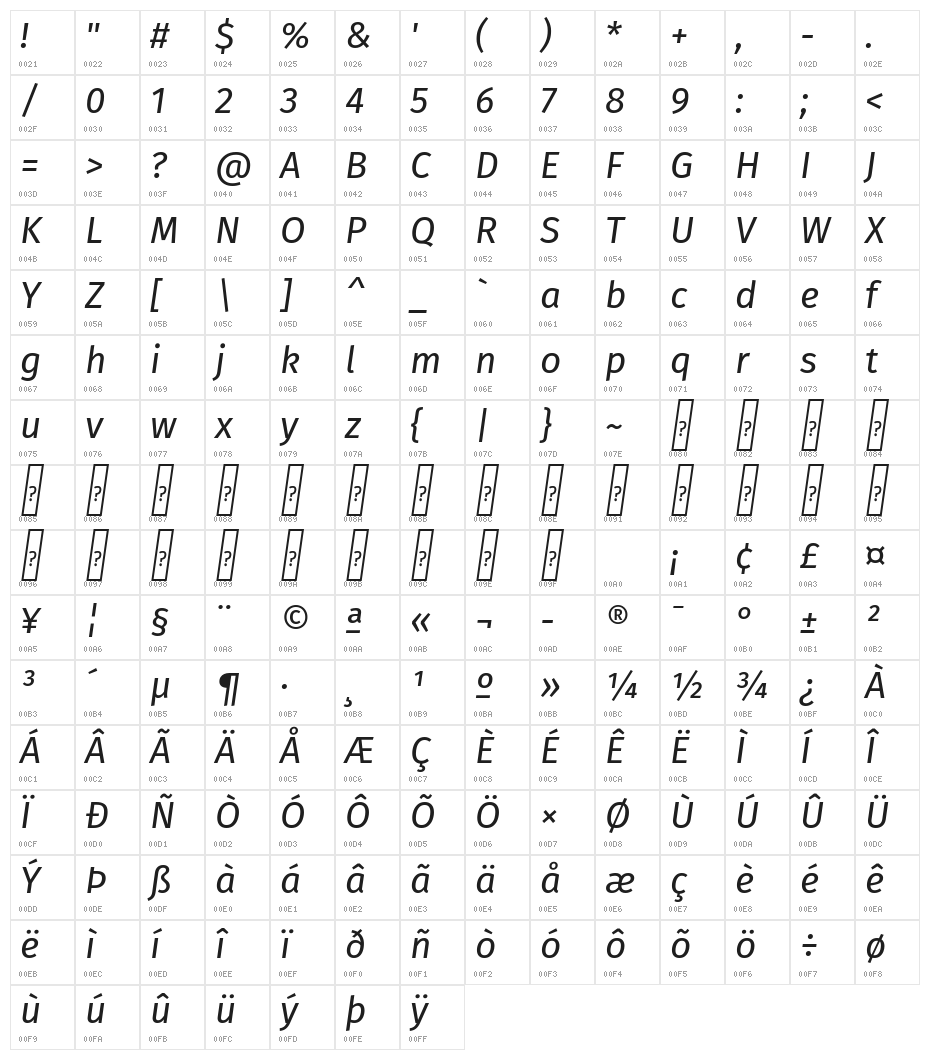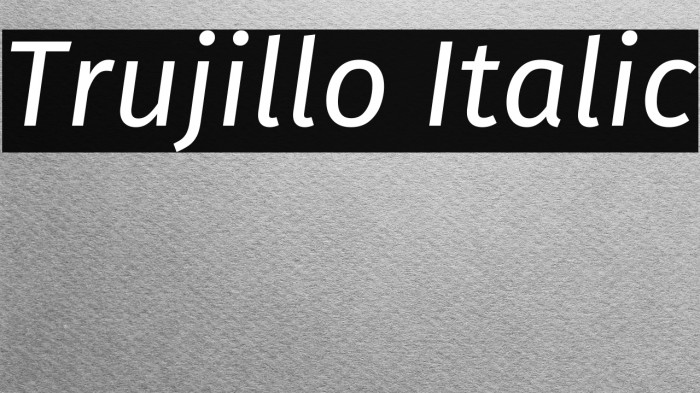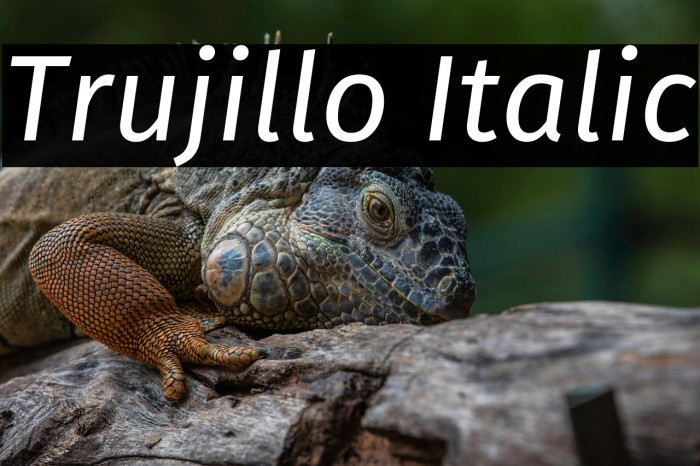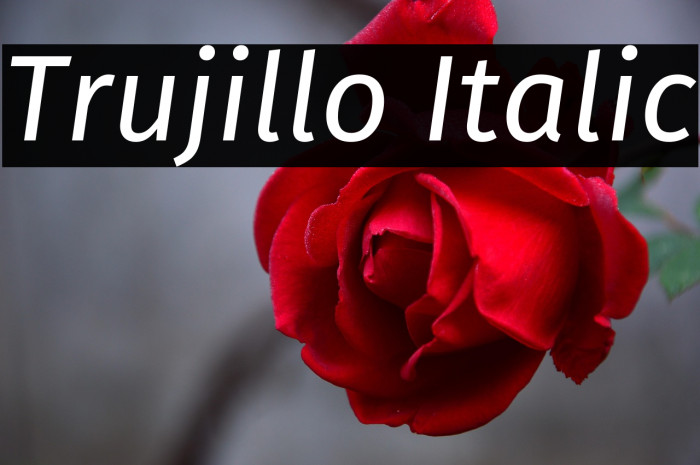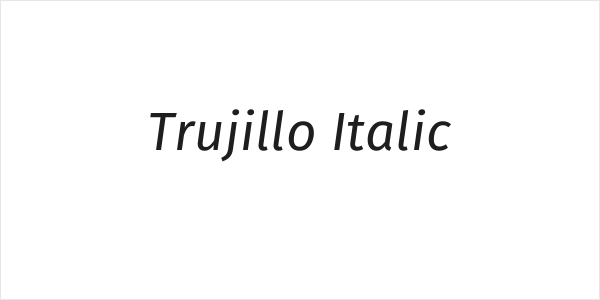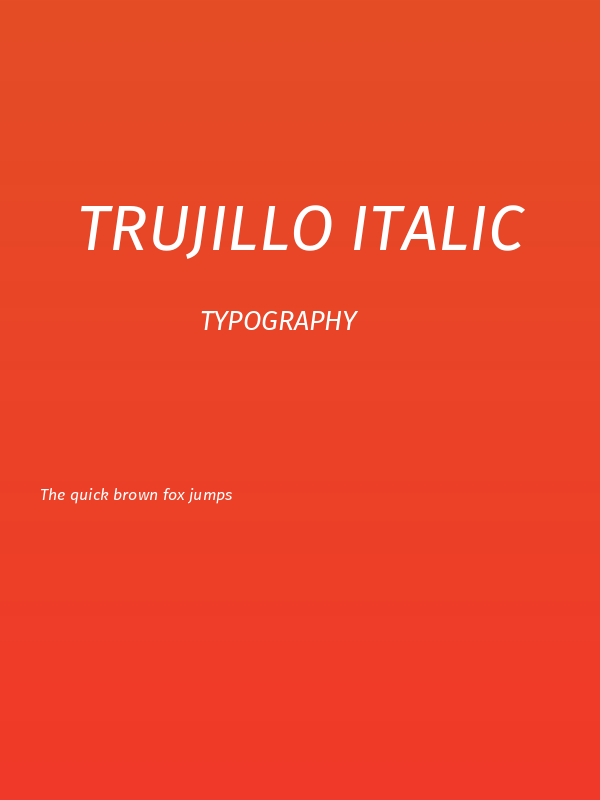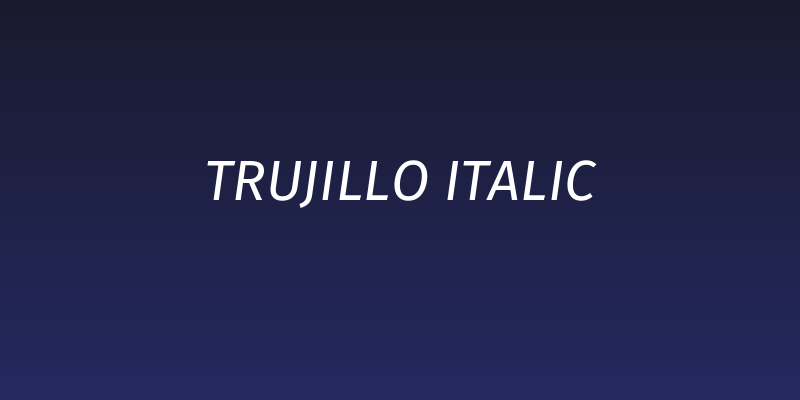
Trujillo Italic Font
Trujillo Italic Description
This font features a clean and modern italic style, characterized by its smooth curves and slightly slanted letters. The uppercase and lowercase letters maintain a consistent flow, providing a sense of elegance and readability. The numerals are well-proportioned, aligning seamlessly with the alphabetical characters. Special characters are distinct and clear, ensuring versatility in various design contexts. The overall appearance is sleek, making it suitable for both digital and print media. Its design is balanced, offering a professional yet approachable aesthetic.
| Proposed Projects | Ideal for branding, editorial design, websites, and advertising materials. |